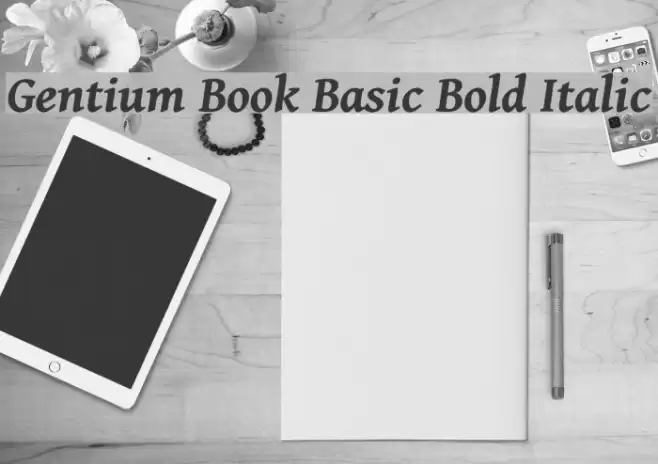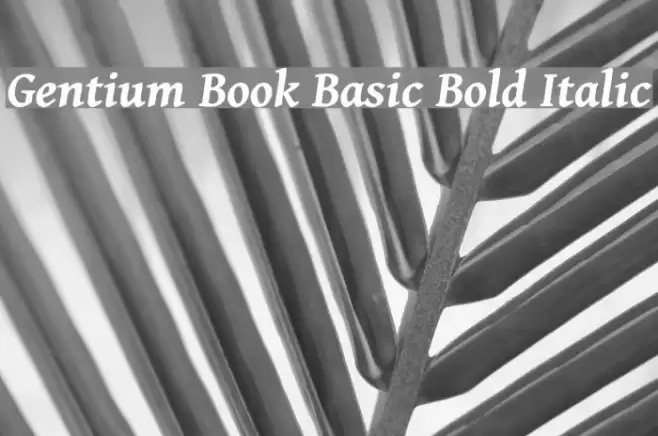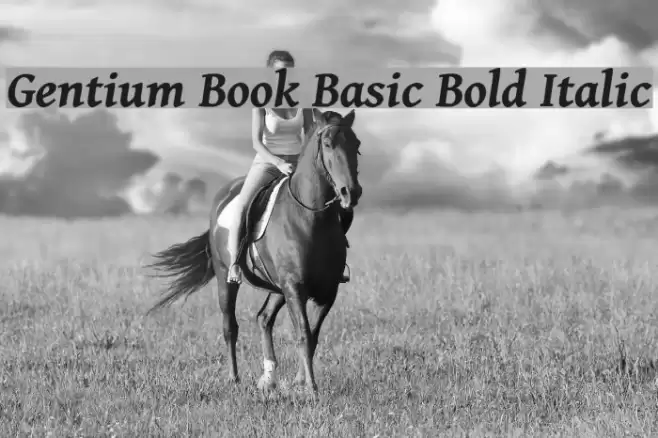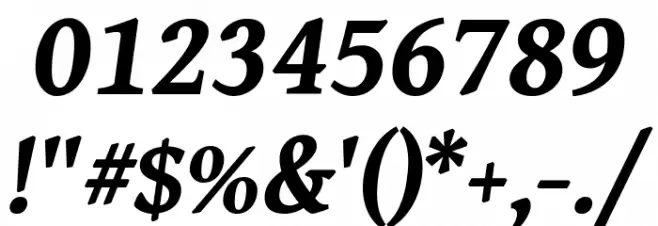
Gentium Book Basic Bold Italic Font
Gentium Book Basic Bold Italic Description
This font exhibits a classic serif style with a bold and italicized appearance, providing a sense of elegance and sophistication. The characters are well-defined with a moderate contrast between thick and thin strokes, enhancing readability while maintaining a stylish look. The serifs are pronounced, adding a traditional touch to the overall design. The italic slant gives the font a dynamic and fluid feel, making it suitable for both formal and creative applications. The spacing between characters is balanced, ensuring clarity and legibility across different sizes.
A bold, italic serif font with classic elegance and moderate contrast from Uncategorized fonts.
- Proposed Projects: Ideal for book covers, formal invitations, branding, and editorial design.
- Overall Style: Classic
- Use Case: Headlines, Body text, Logos